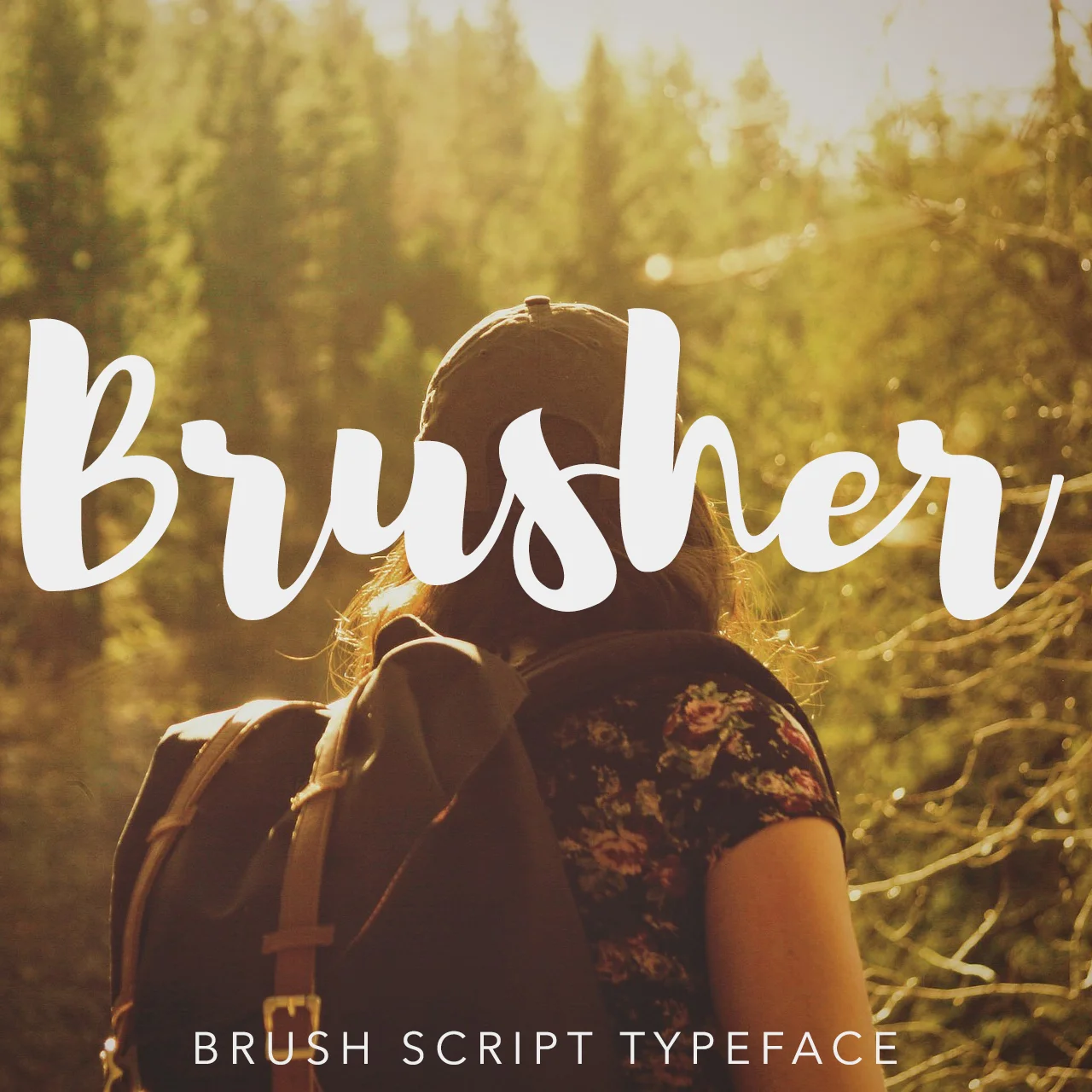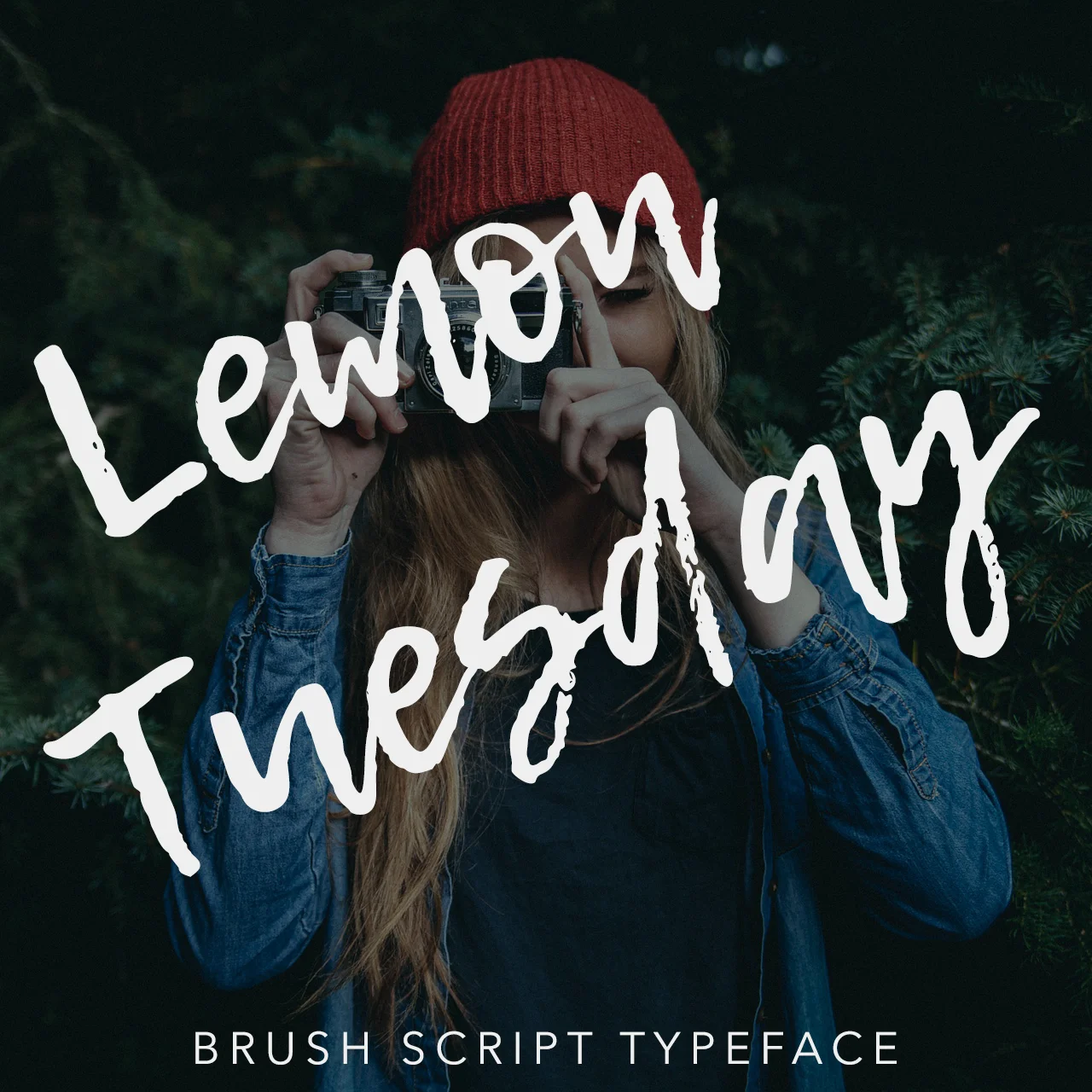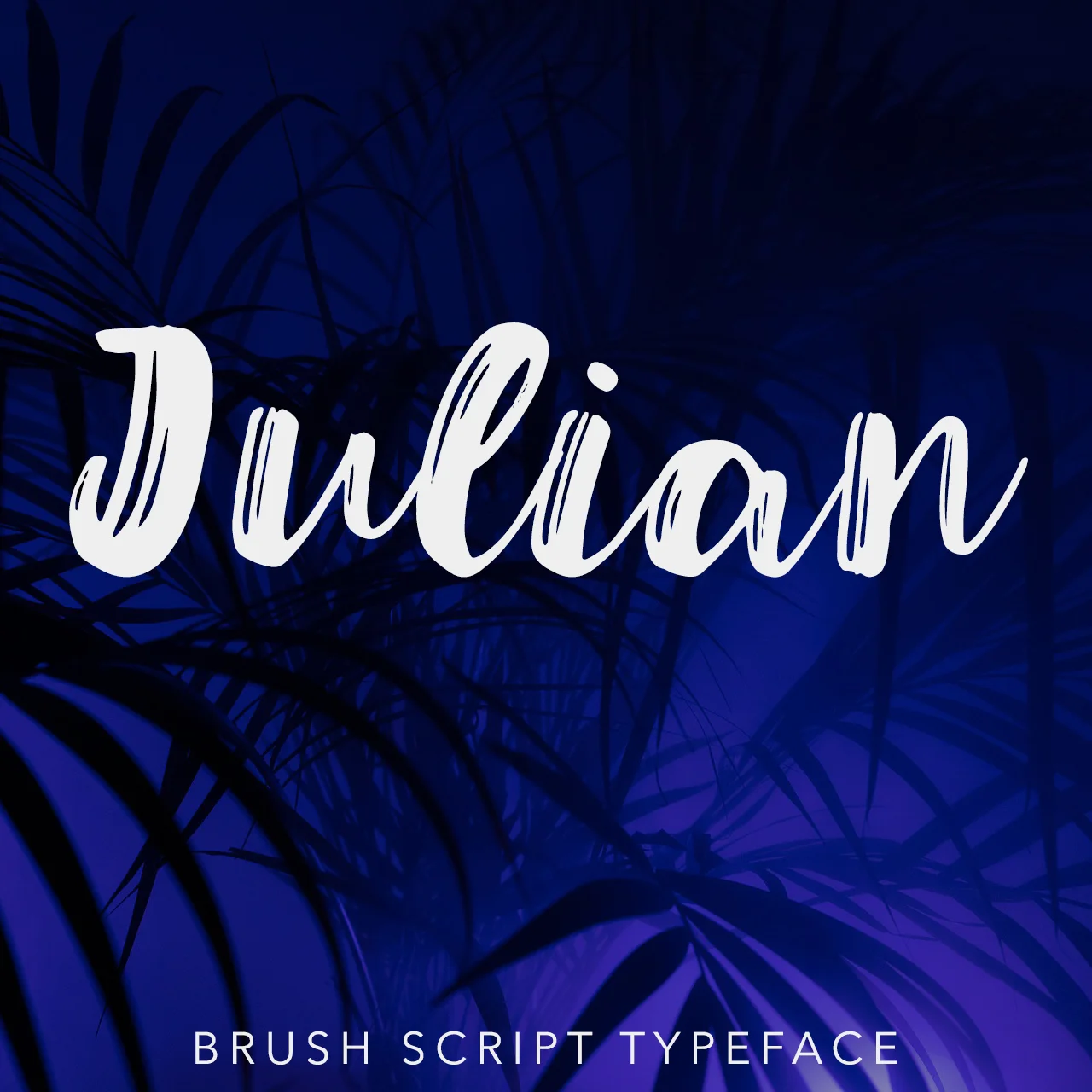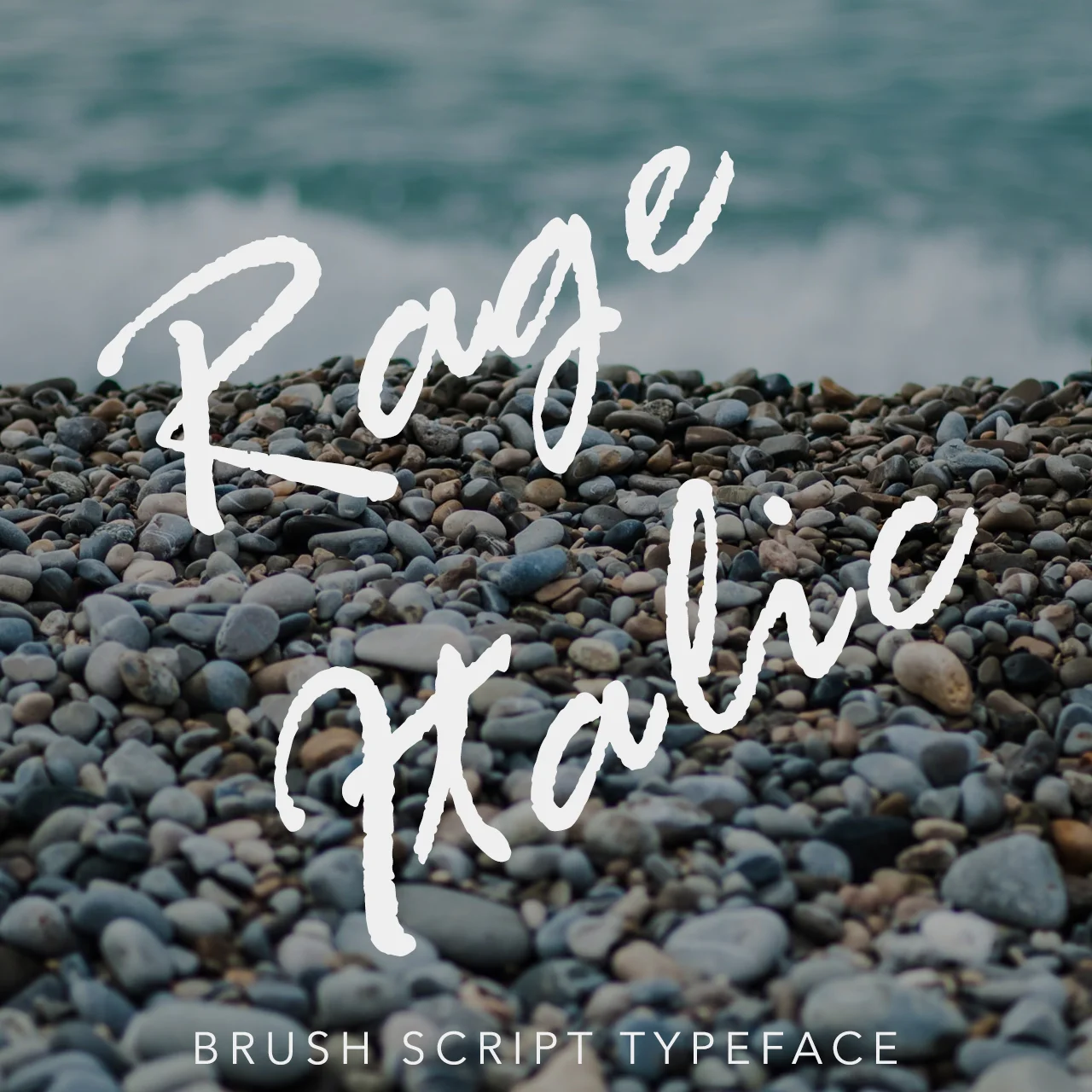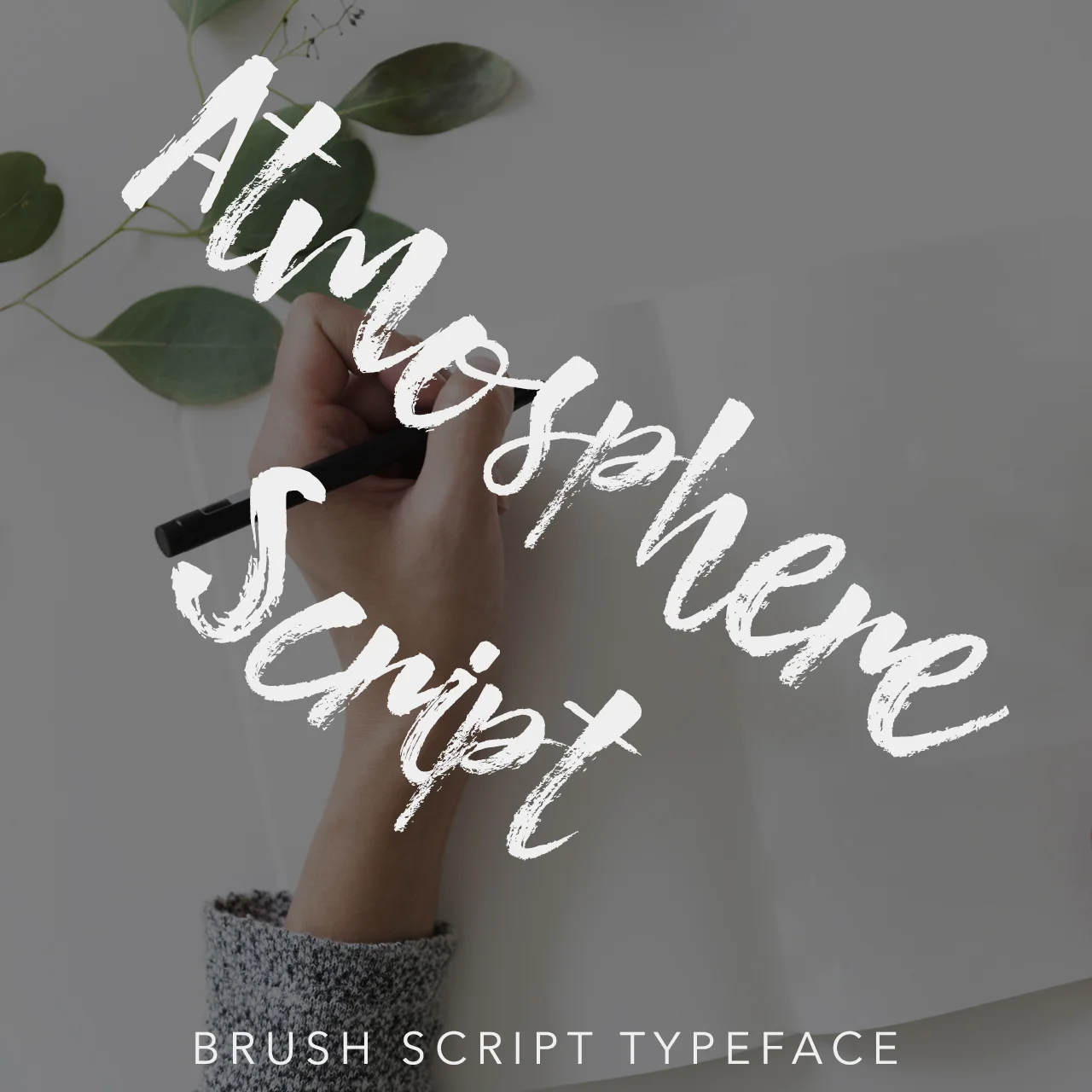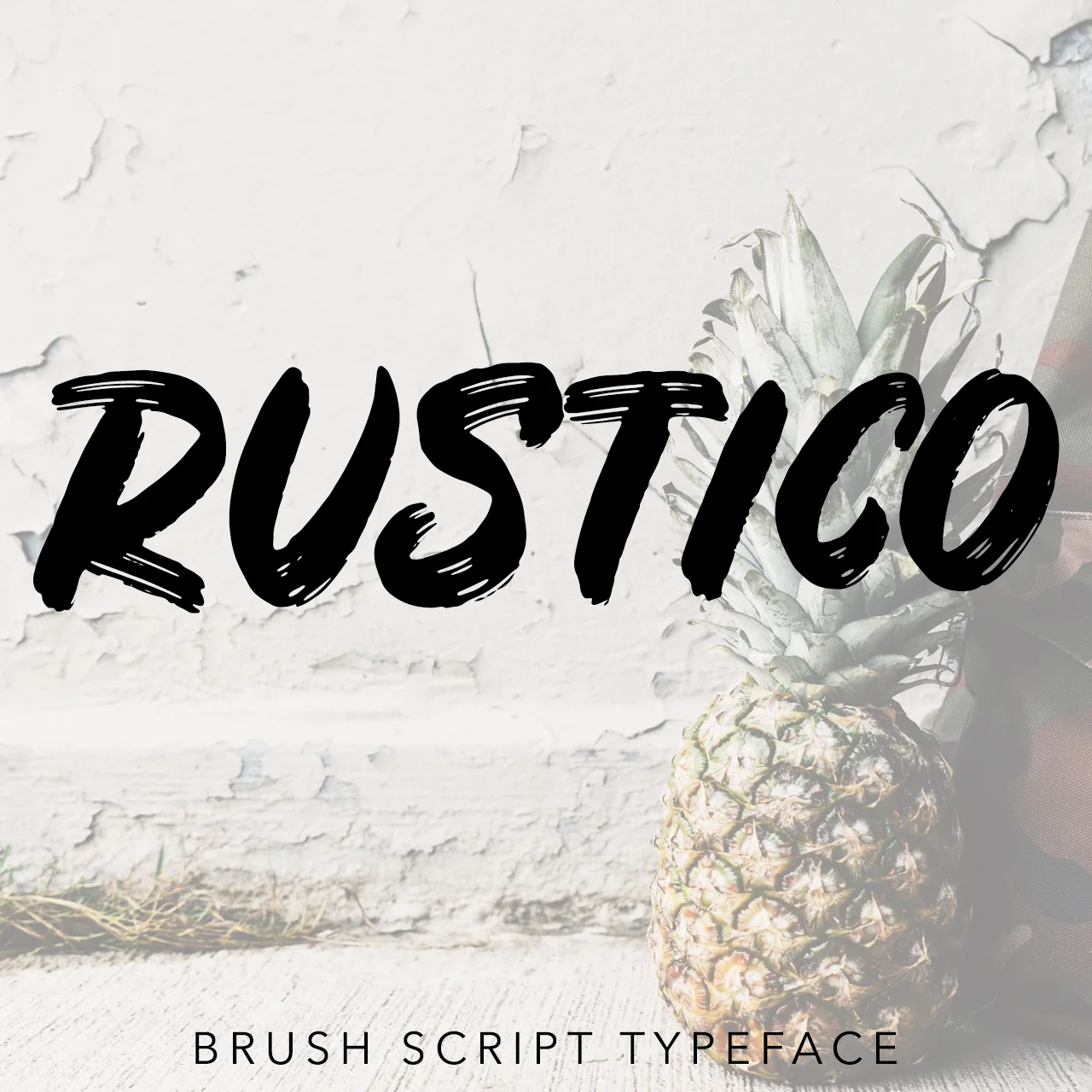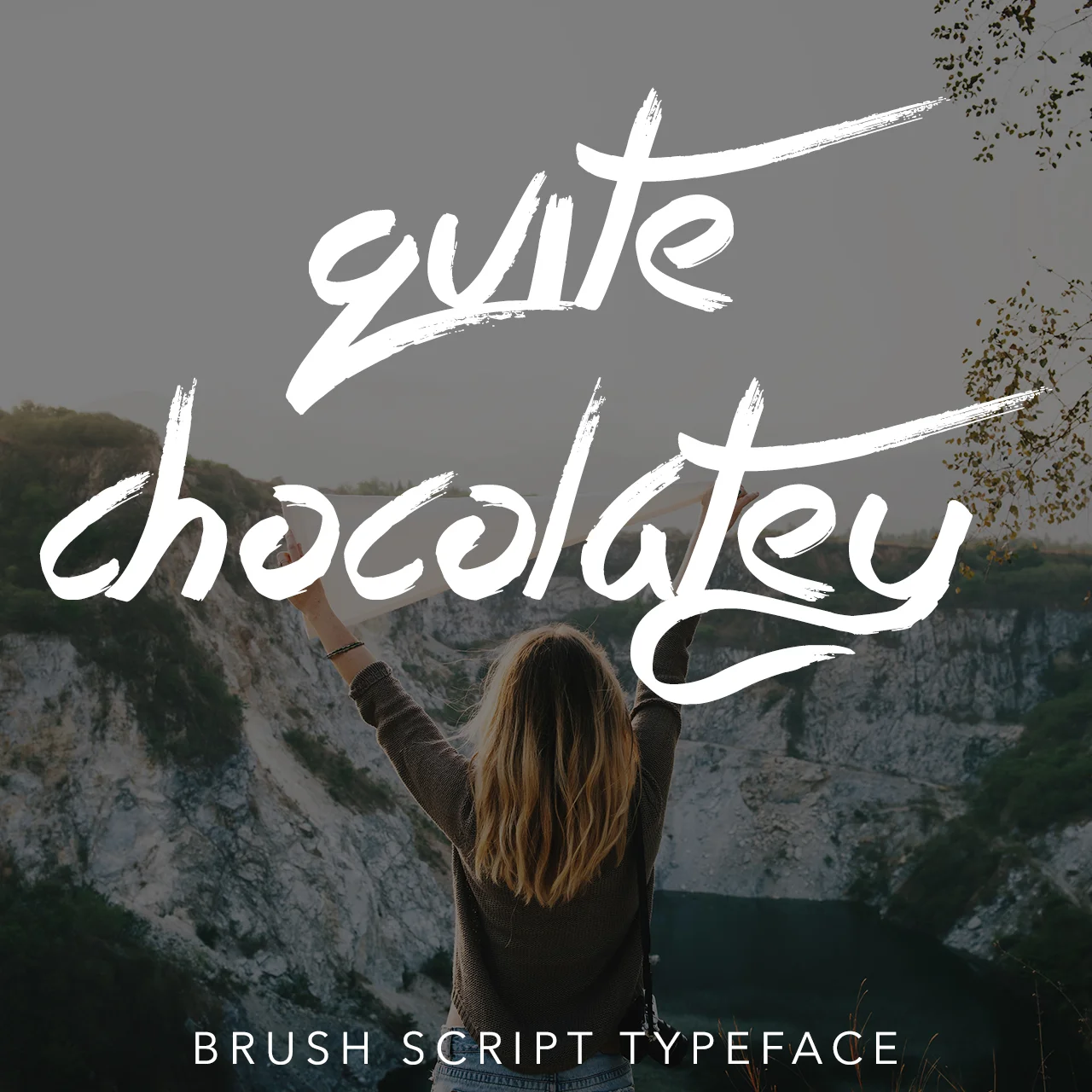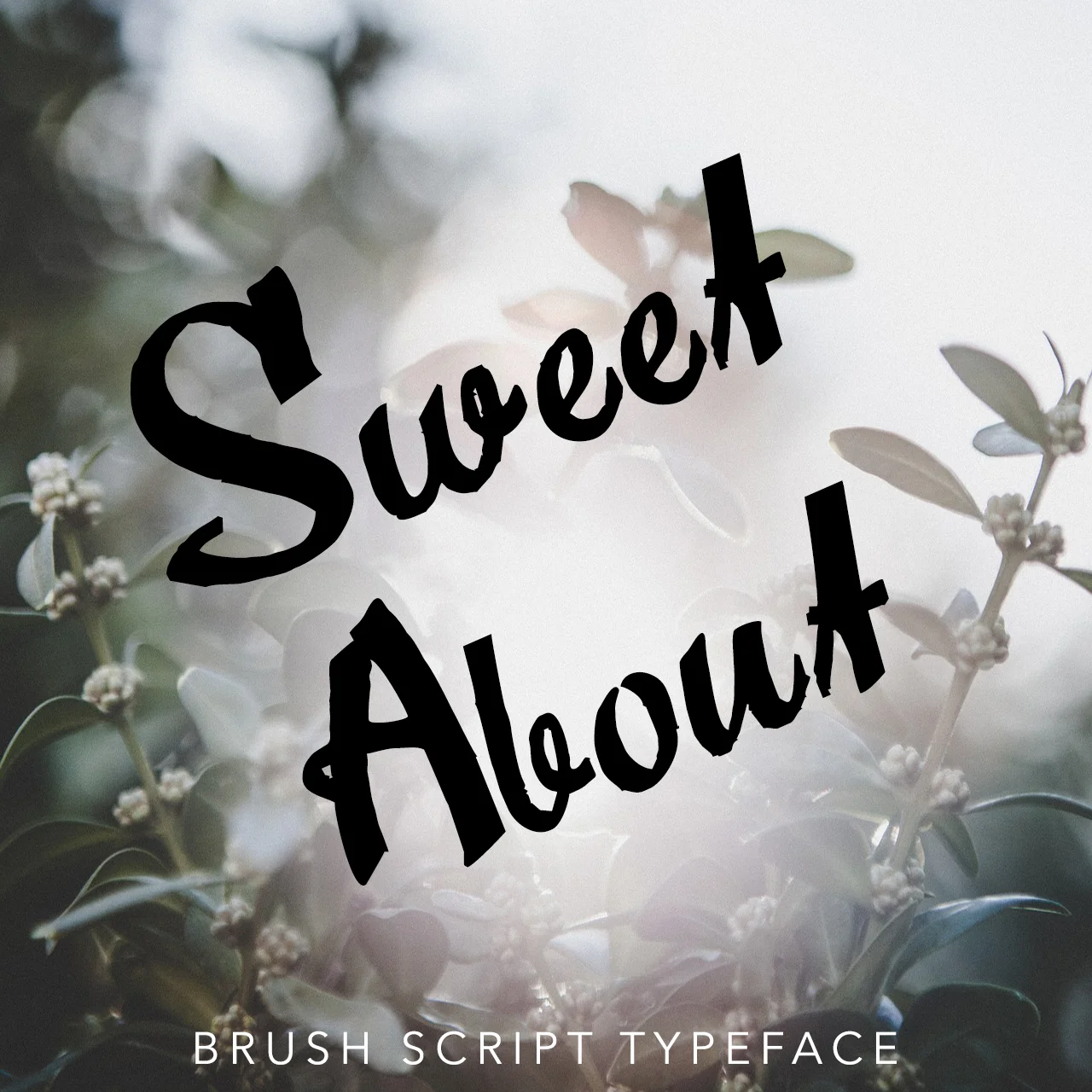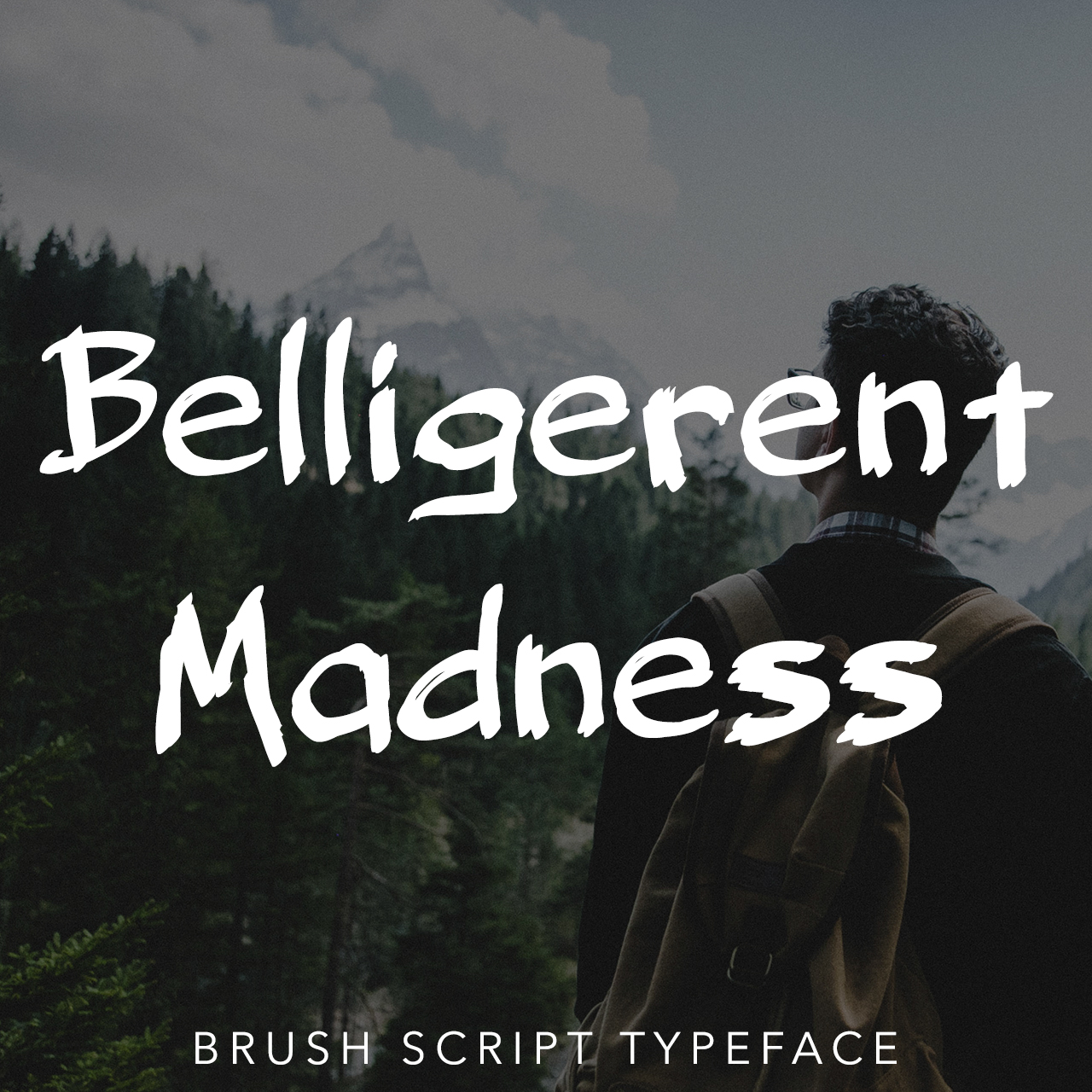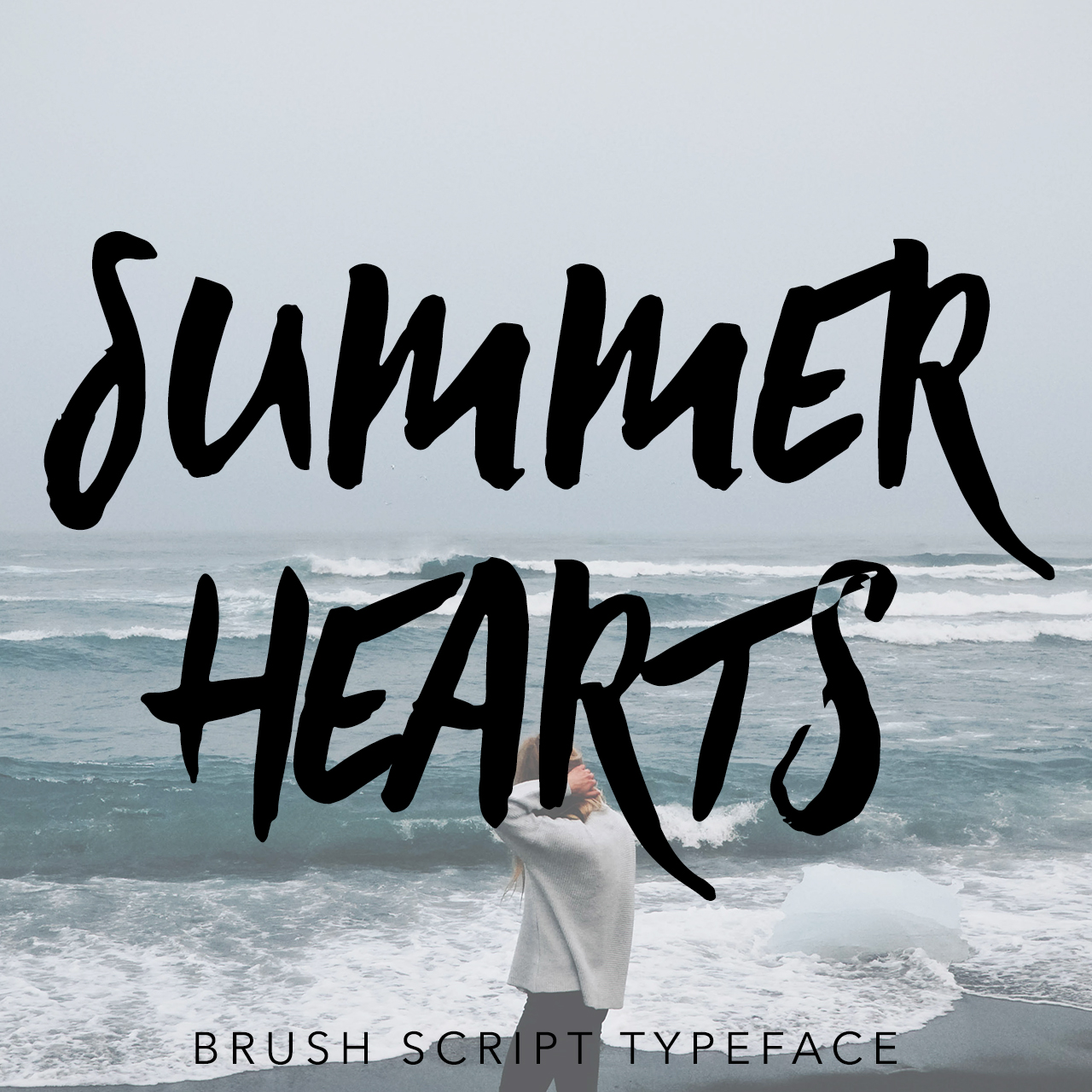
Free Font Collection: 18 Brush Fonts
This month's font collection series post will focus on one of my favorite styles - brush fonts. Thick irregular lines, distortion and imperfections allow for this font style to emote both a modern and vintage design. Each character appears as if they were painstakingly written out by someone else's hand. Incorporating two completely different styles into one typeface seamlessly blends in with today's design trends. Brush-style typography is currently seeing a recent revival in popularity- being used in everything from blog post images to t-shirts.